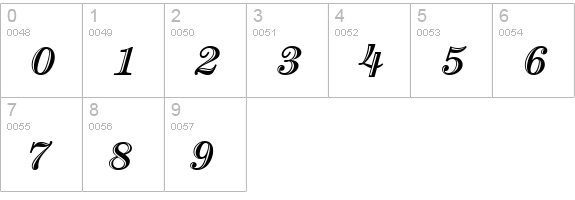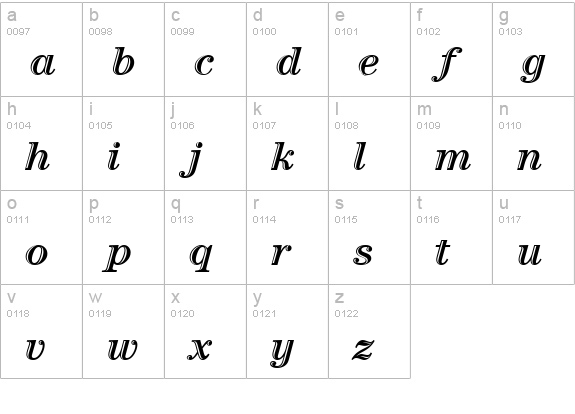
Century Hand ICG Italic Font Details
Century Hand ICG Italic is a distinctive, italic variant in the Century typeface family \xE2\x80\x94 well suited to design and typography projects.
Century Hand ICG Italic font is a stylish and elegant typeface that adds a touch of sophistication to any design. The italic style of this font gives a dynamic and modern look, making it perfect for projects that require a contemporary feel. The flowing curves and unique design elements of Century Hand ICG Italic make it stand out and grab attention. What makes this font even more appealing is that it is available for free download at FontsMarket.com. This means you can easily access and use this beautiful font in your projects without any cost. Whether you are working on branding, marketing materials, invitations, or any other design project, Century Hand ICG Italic font will bring a touch of class and distinction to your work. Download it today and elevate your designs with this stunning typeface.